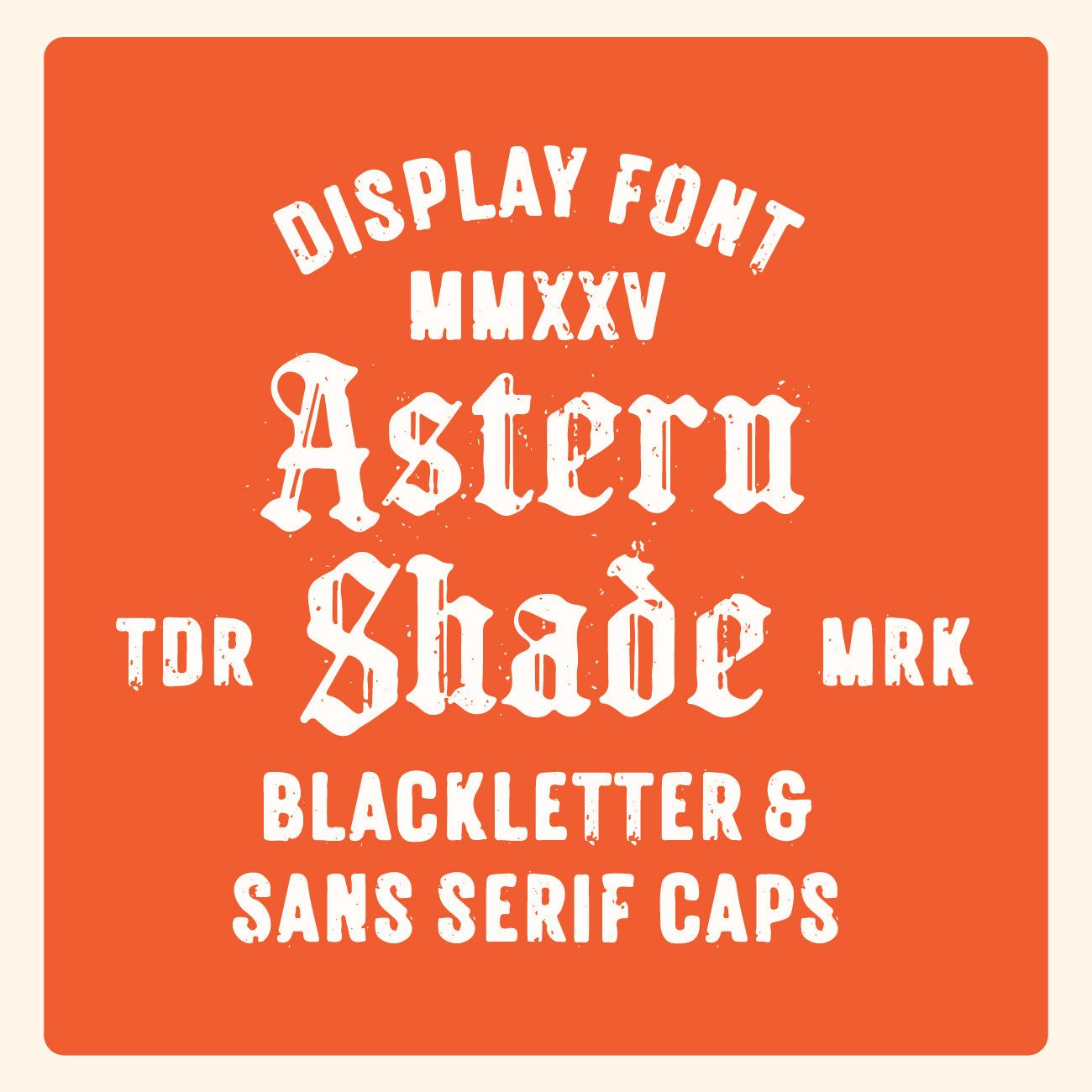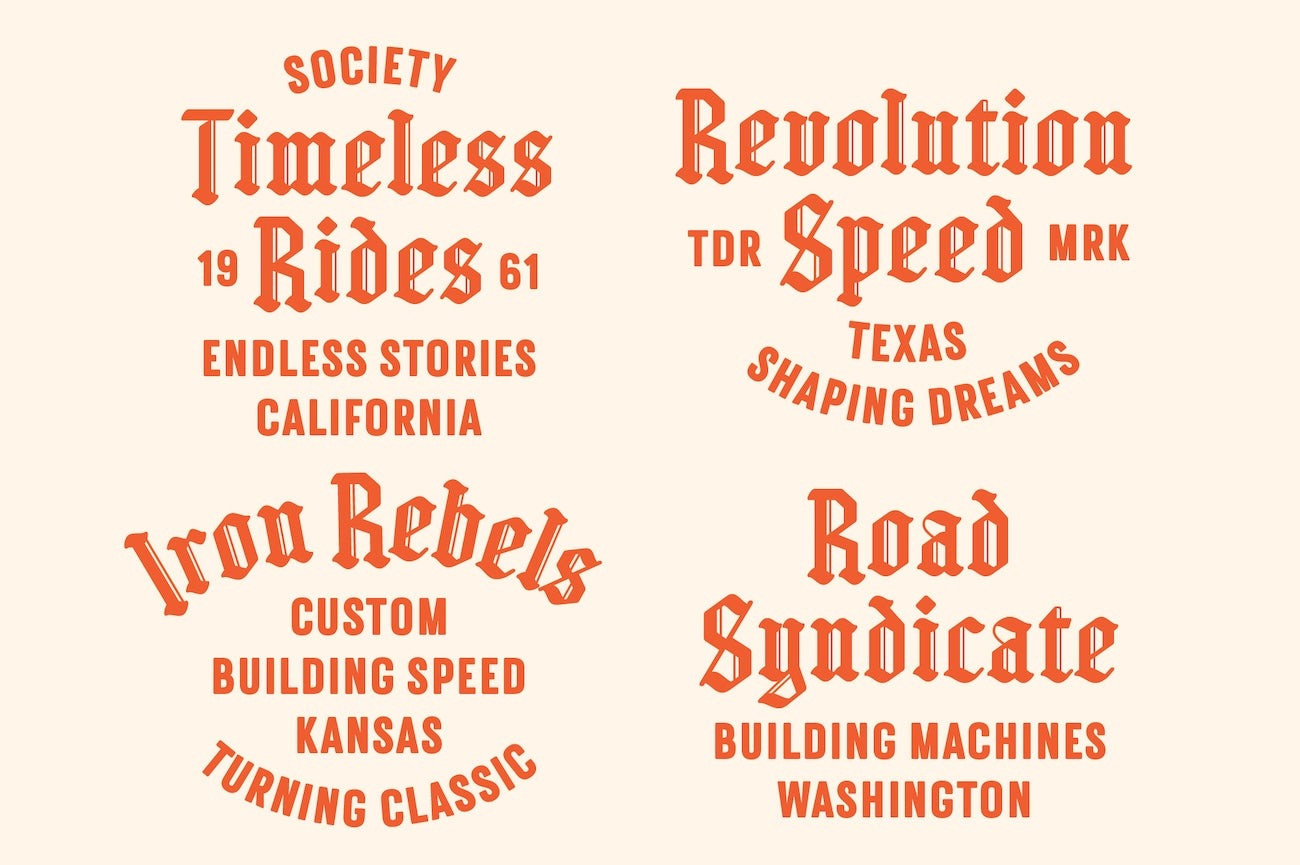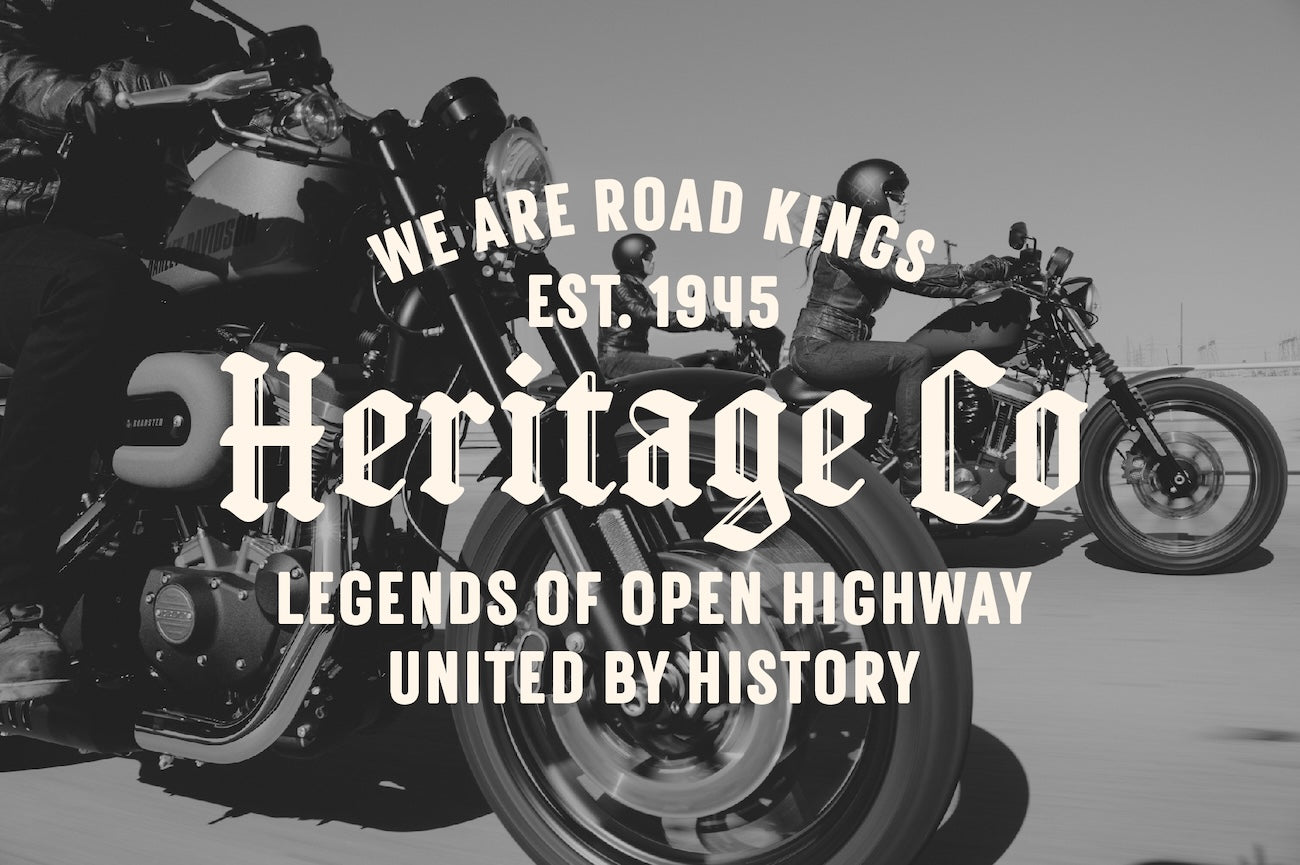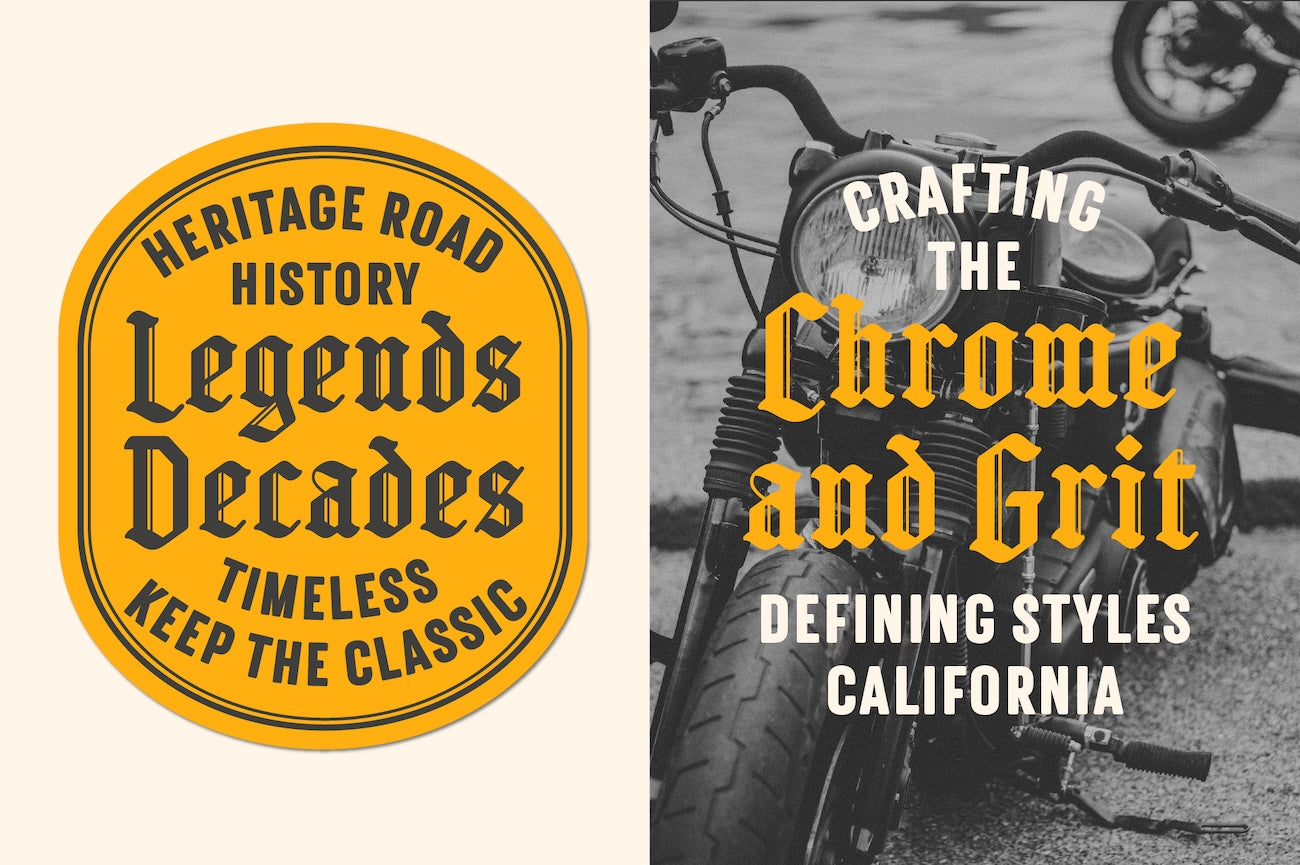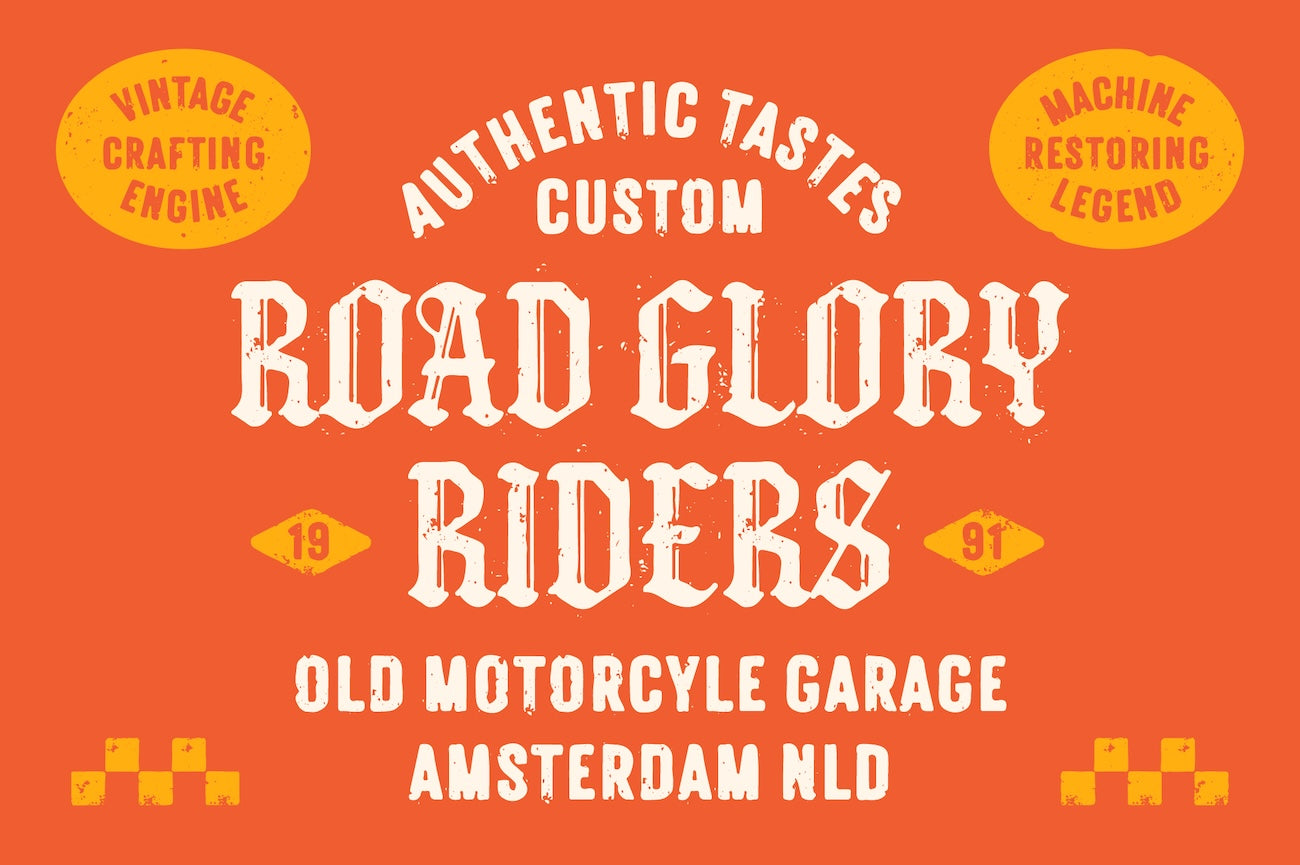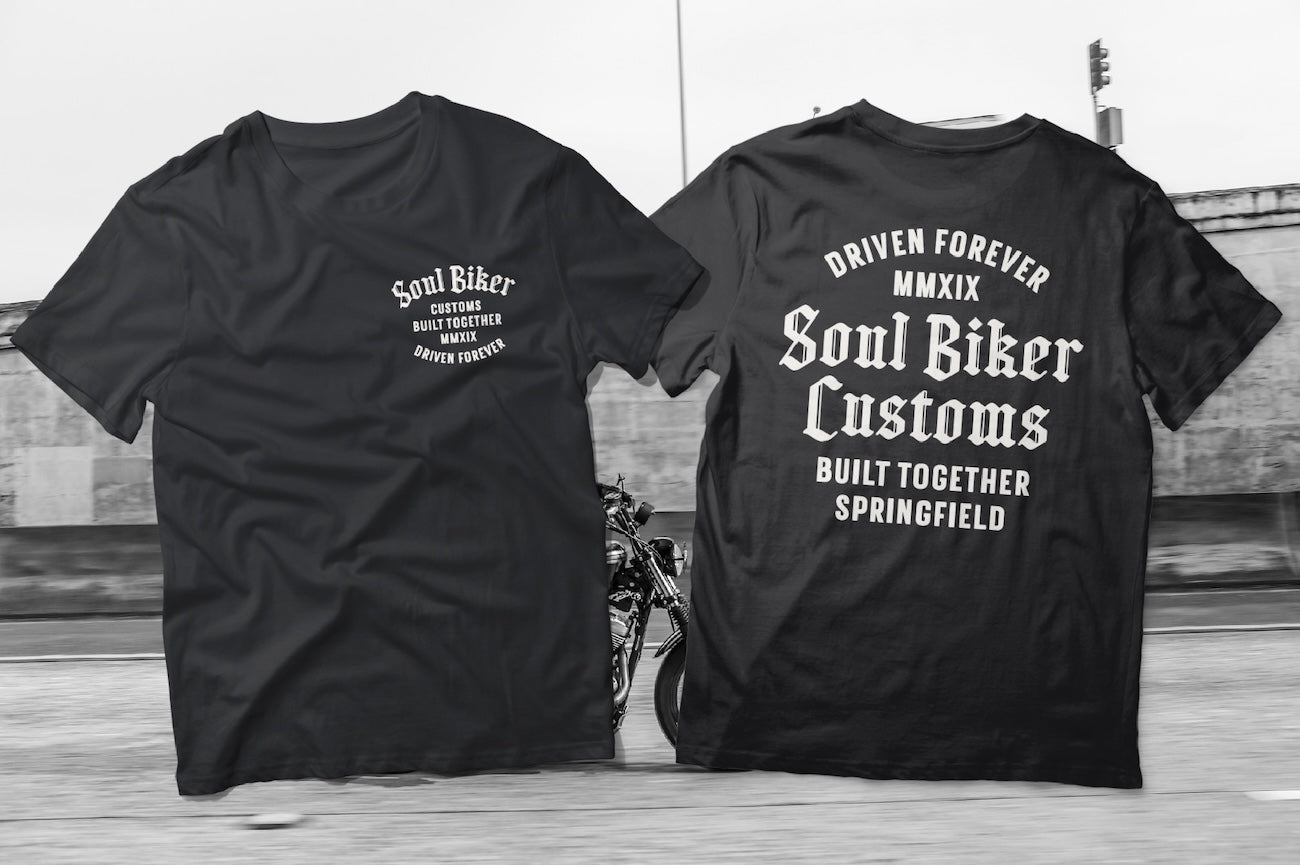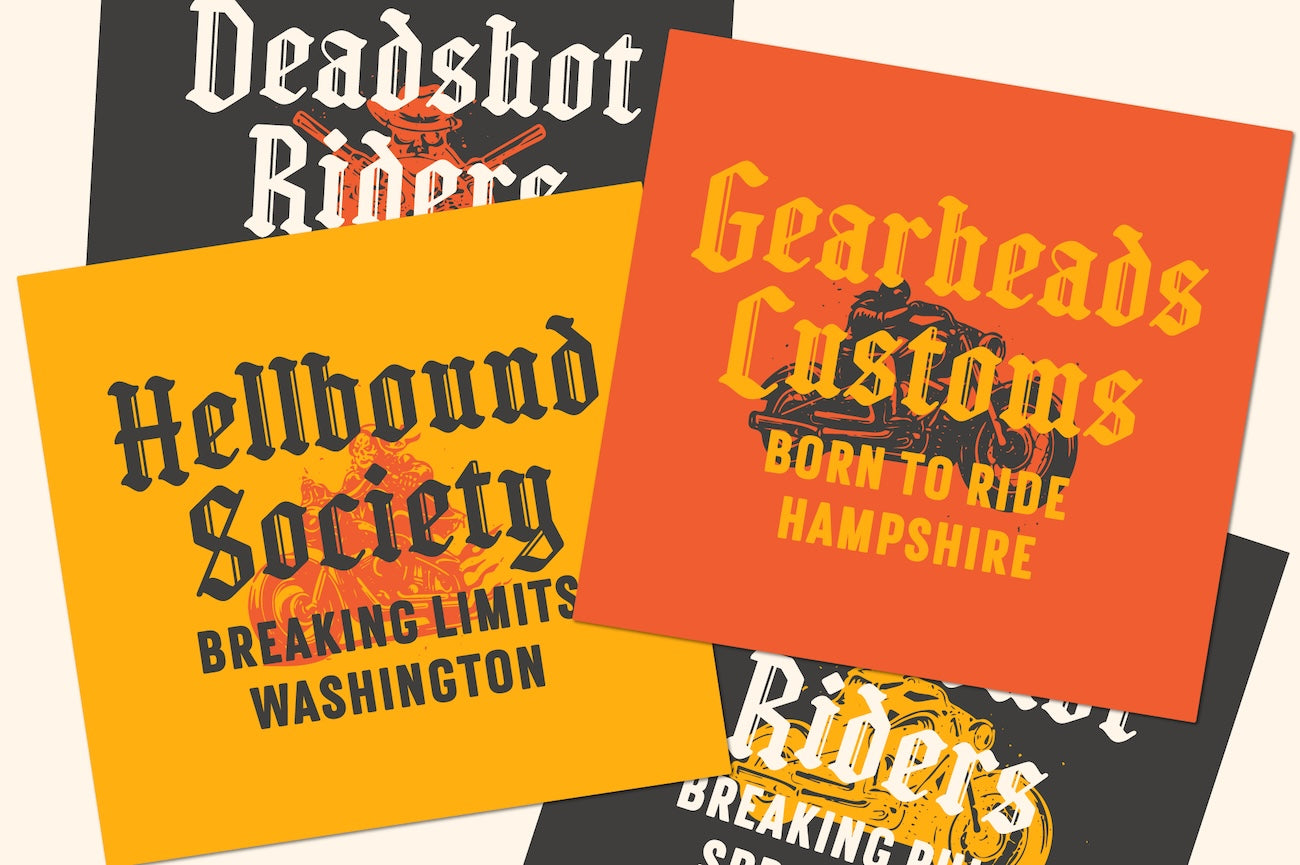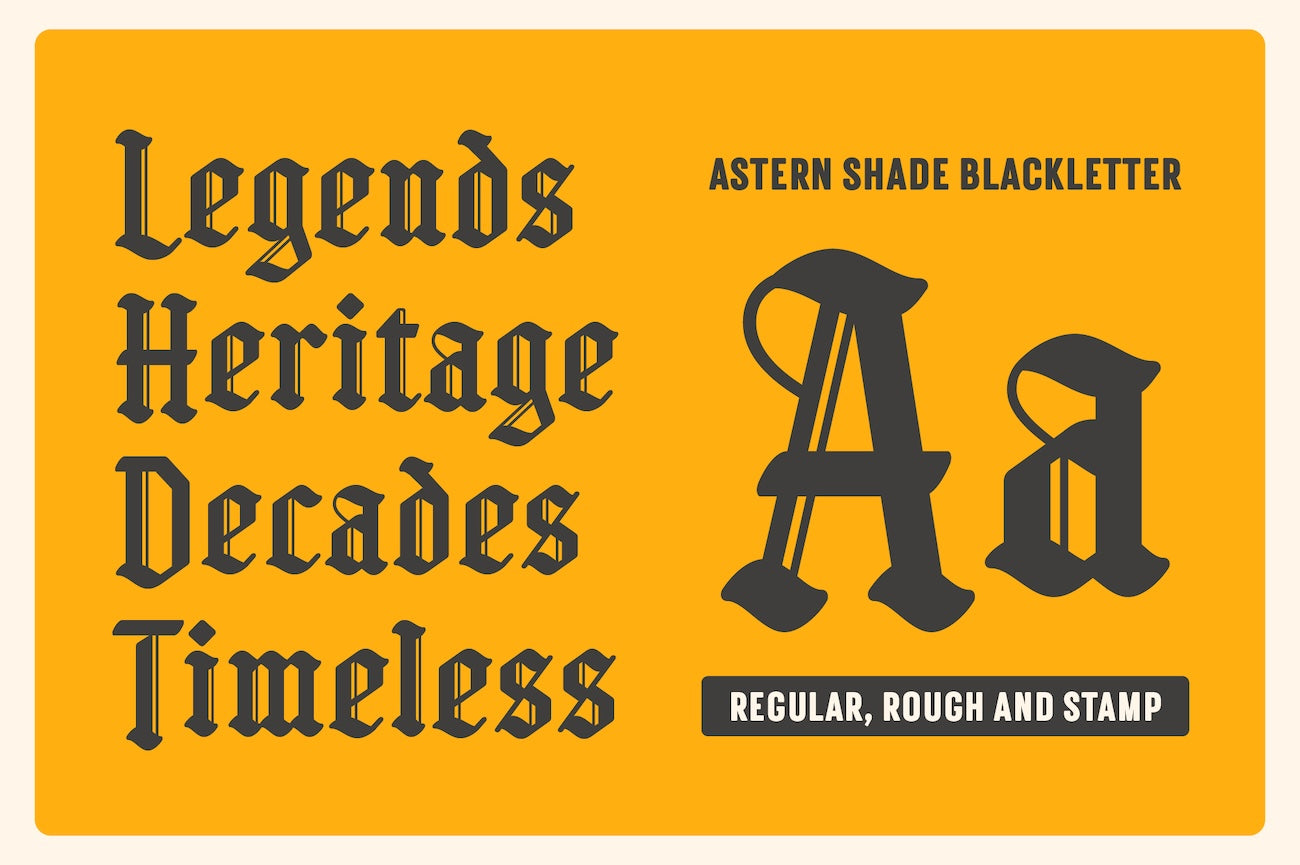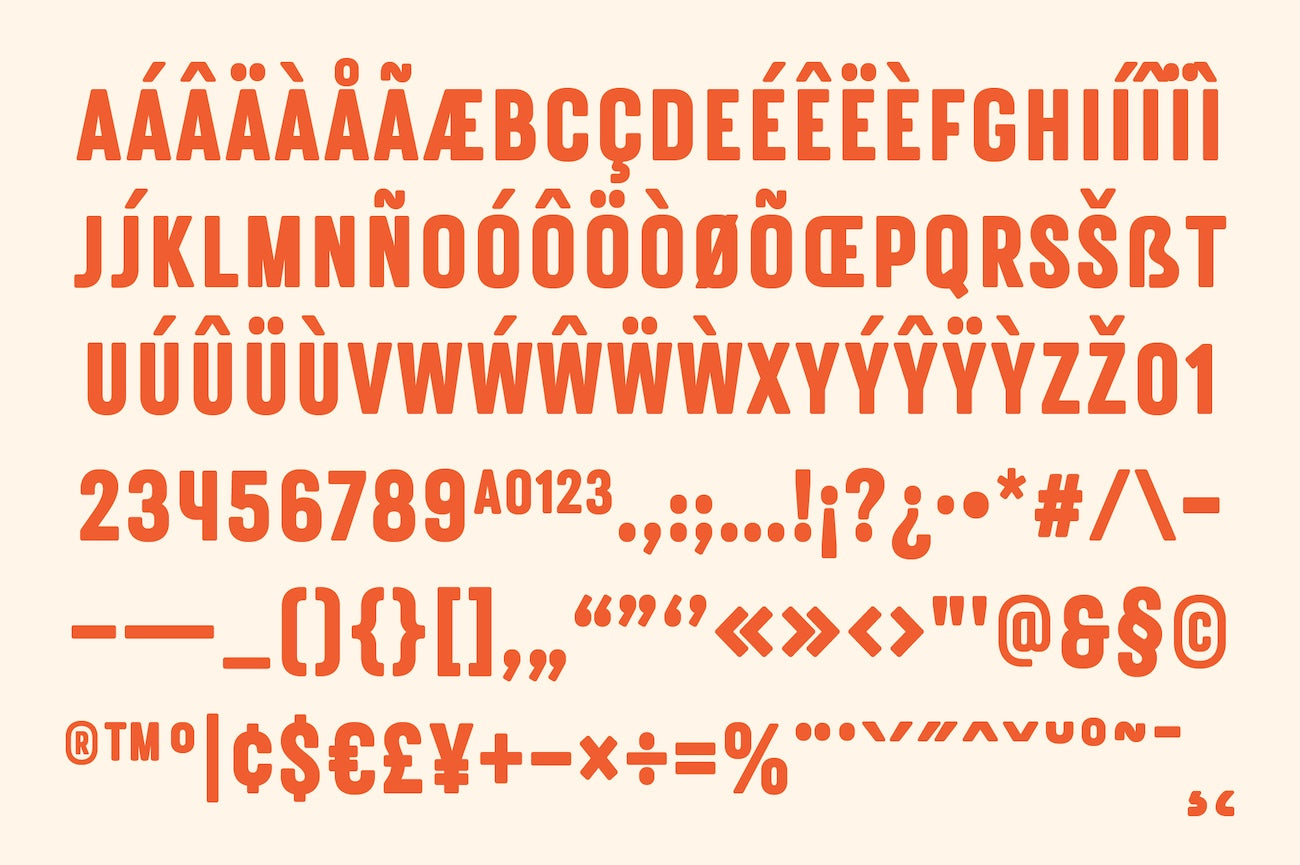
Astern Shade - Blackletter Font
Astern Shade combines the strong character of blackletter and sans serif fonts in a versatile design, featuring all-caps characters for a striking look. With three unique styles (regular, rough, and stamp), this font is perfect for logos, branding, posters, and more. Ideal for retro and motorcycle-themed designs, Astern Shade adds a bold, vintage edge to your creative projects.
Astern Shade includes :
6 fonts (blackletter and sans serif)
3 style typefaces (regular, rough and stamp)
Uppercase, lowercase, numeral, symbol and punctuation in blackletter font
All-caps, numeral, symbol and punctuation in sans serif font
Multilingual
Astern Shade is a versatile font that combines blackletter and sans serif styles, featuring six fonts and three unique styles (regular, rough, and stamp). It includes uppercase and lowercase letters, numerals, symbols, and punctuation, is multilingual, and is PUA encoded.